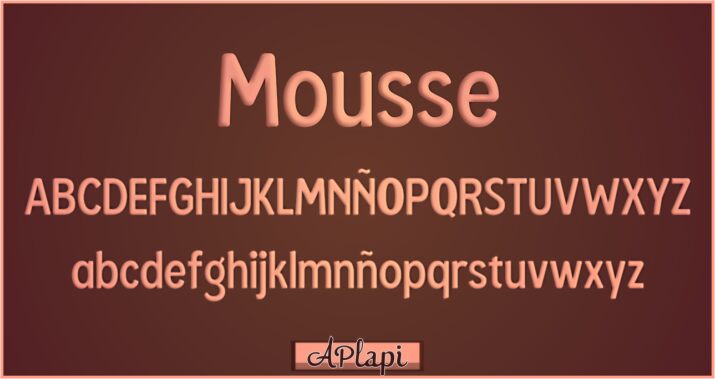
Mousse
Mousse is a soft and playful display font that exudes a charming, comic-inspired aesthetic. The rounded, almost bubbly letterforms create a sense of whimsy and approachability, making it an excellent choice for headings, titles, and mid-sized text. Its subtle, yet distinctive style lends itself well to a variety of design applications, from branding and packaging to editorial layouts and digital interfaces.
Mousse's versatility and visual appeal make it a compelling option for designers seeking to infuse their projects with a touch of lighthearted personality.
Created by Abraham PlaPi, 2017